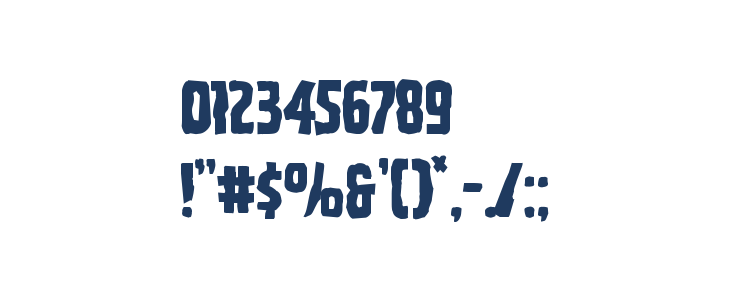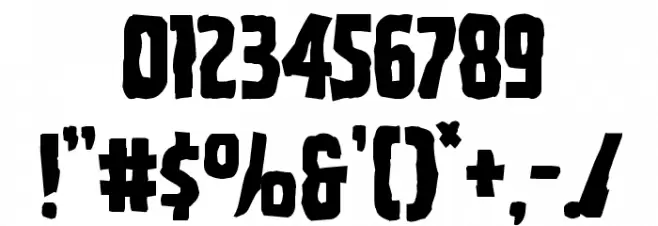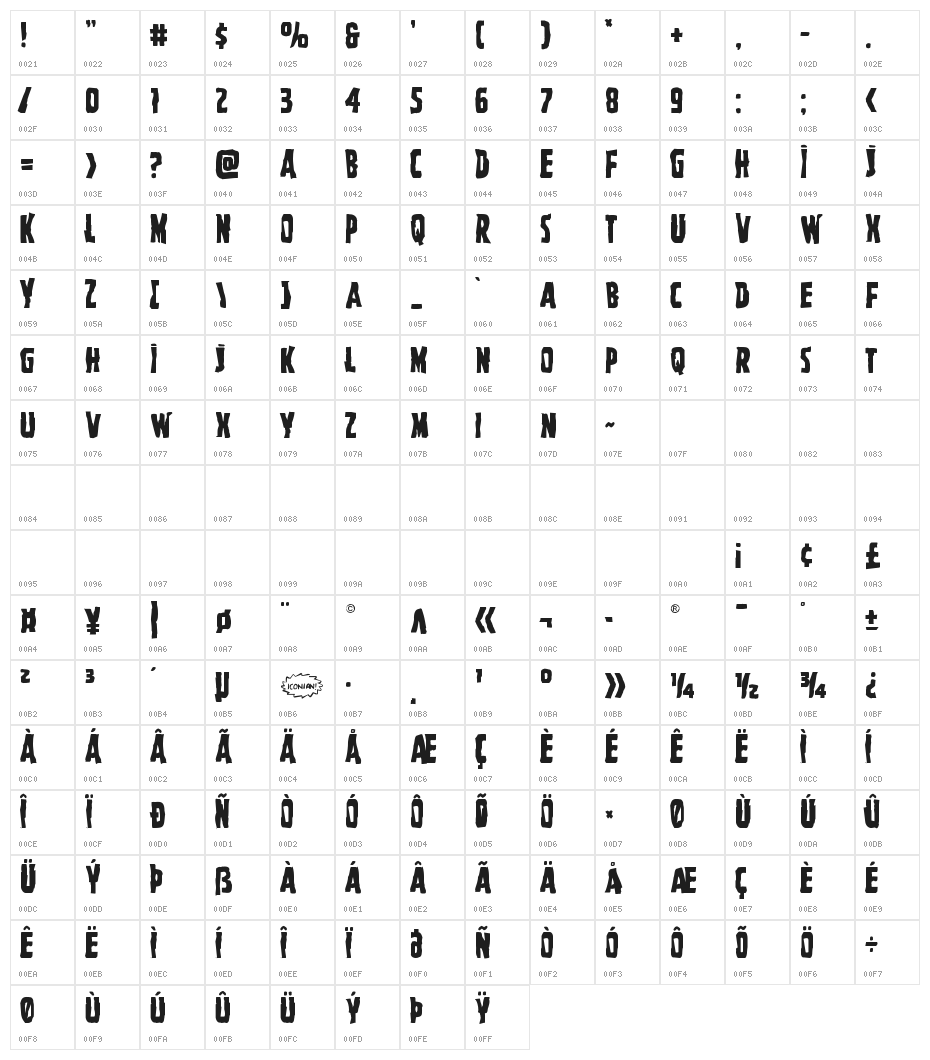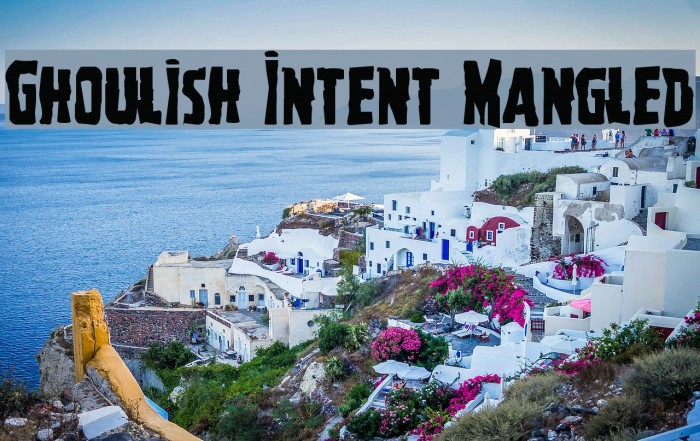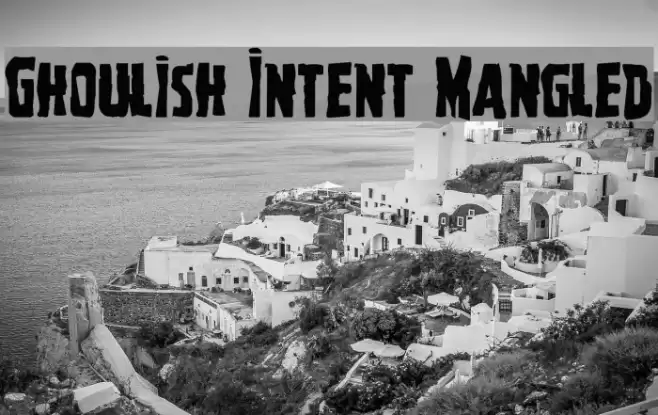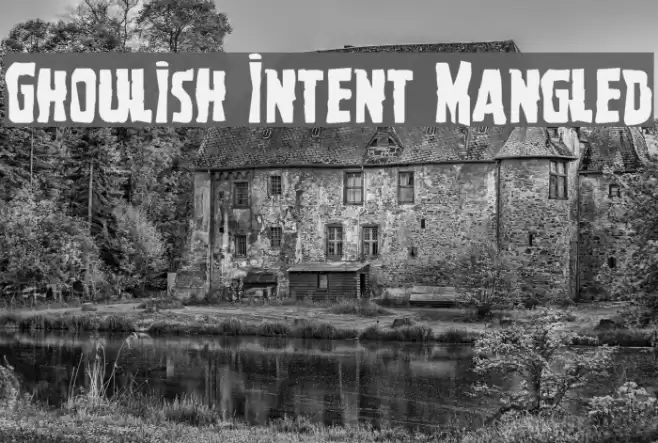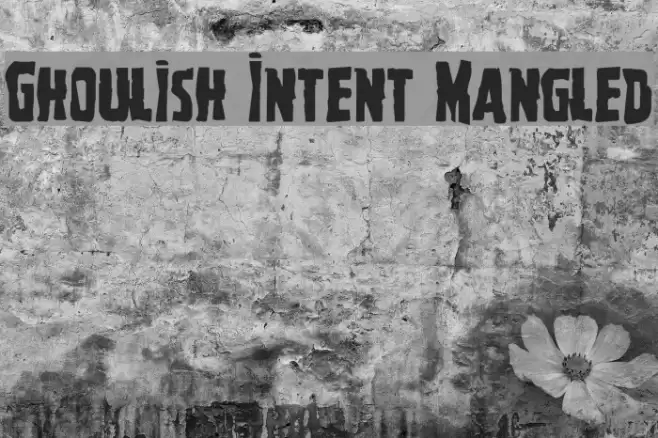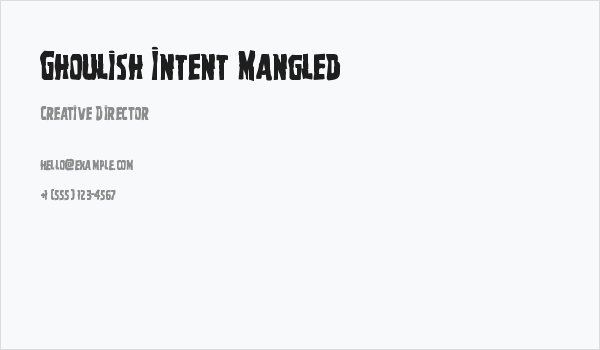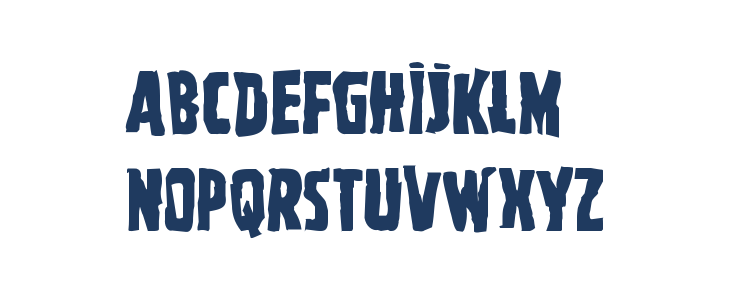
Ghoulish Intent Mangled Font
Ghoulish Intent Mangled Description
This font features a bold, jagged style that evokes a sense of horror and unease. The characters are irregularly shaped, with uneven edges and a distressed appearance, giving them a mangled, chaotic look. The uppercase and lowercase letters maintain a consistent height, while the numbers and special characters follow the same distorted aesthetic. This font is designed to capture attention with its dramatic and unsettling visual impact, making it ideal for themes that require a spooky or eerie atmosphere.
| Proposed Projects | Ideal for Halloween-themed designs, horror movie posters, haunted house flyers, and any project requiring a spooky, unsettling aesthetic. |